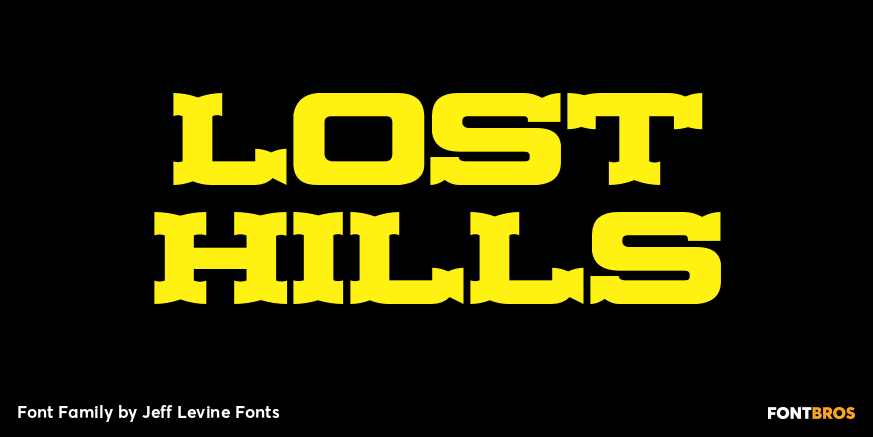
Lost Hills
Lost Hills JNL is a split-serif Western font based on Jeff Levine's Brogado JNL. Named for an actual location in California, this font has all the basic characteristics of a traditional Old West design.